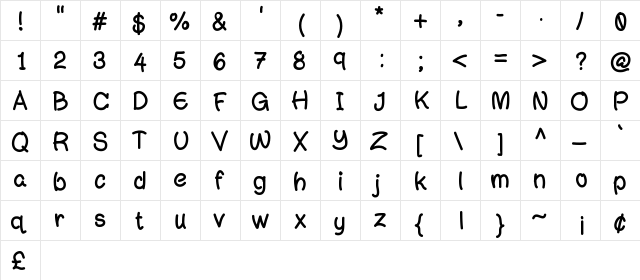
JimmysMedium Medium
Design Context for JimmysMedium Typeface
JimmysMedium takes a measured approach to typography — its balanced proportions and neutral character make it a reliable workhorse for both digital and print work.
Pro Tip: Use JimmysMedium in both headline and body roles to test its range before committing to a single application.